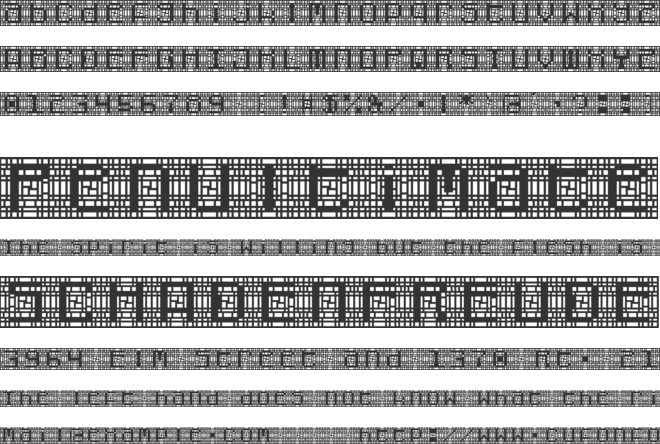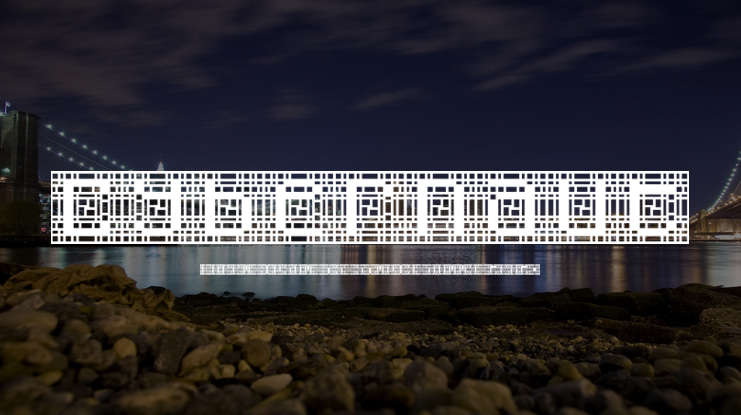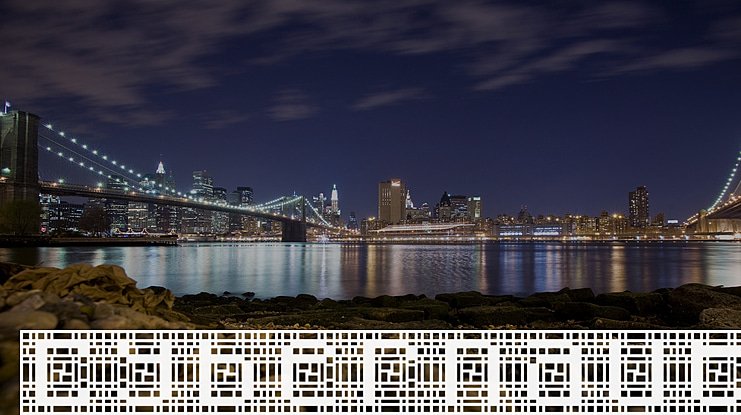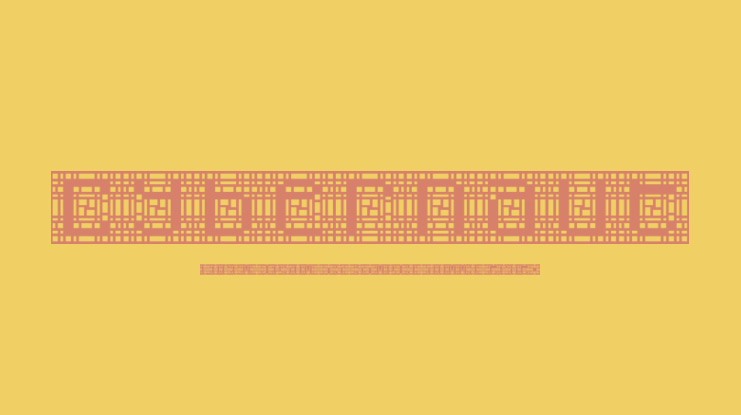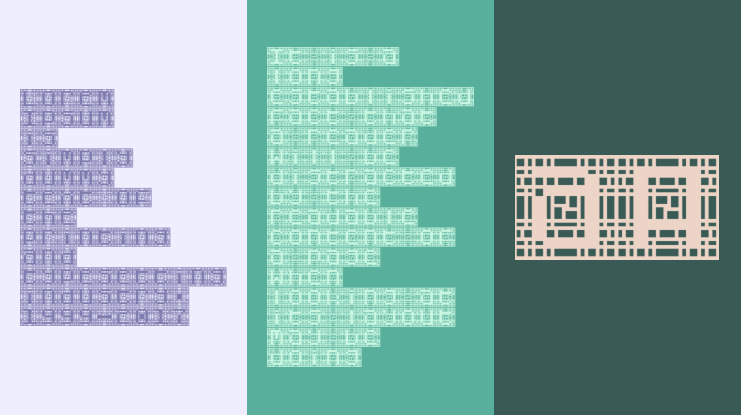
Cybernaut Font
Experimental cyberpunk robot mosaic thing. It gives me a strong "system font" feeling and seems like something that might be included with the OS of some futuristic tech deck. If the Fairlight Excalibur from Shadowrun Returns had its own font, this could be it!
Original size: 21pt (use multiples of this size for pixel perfection)